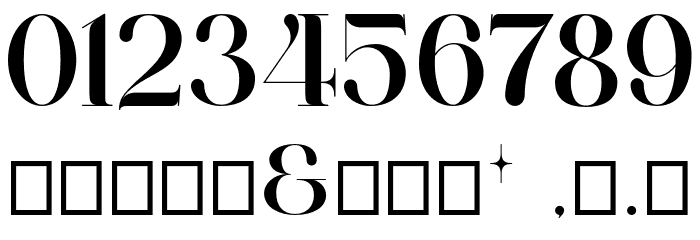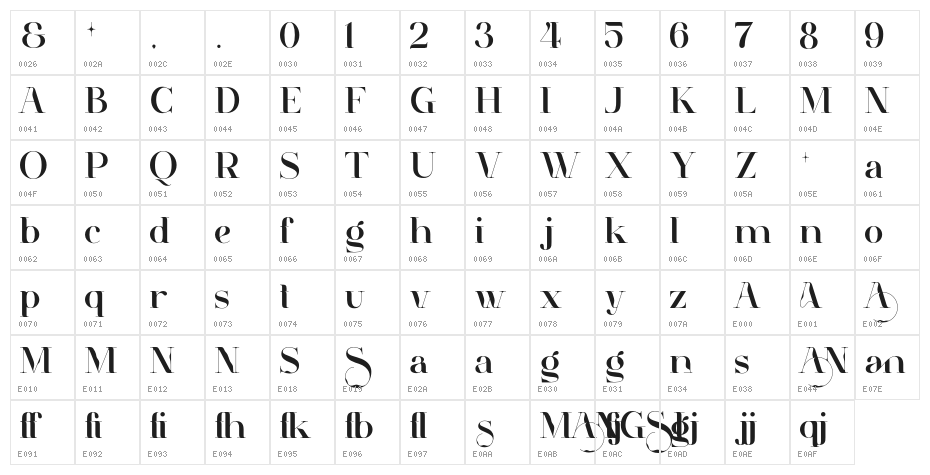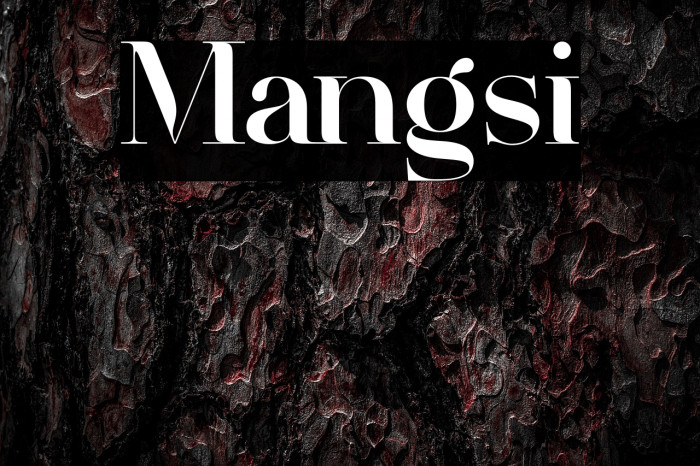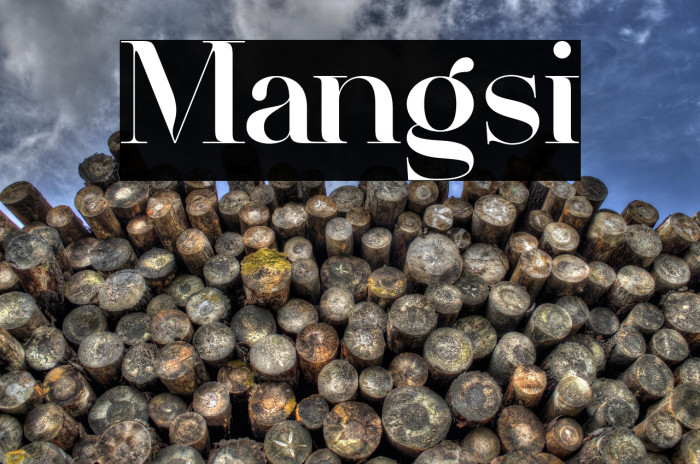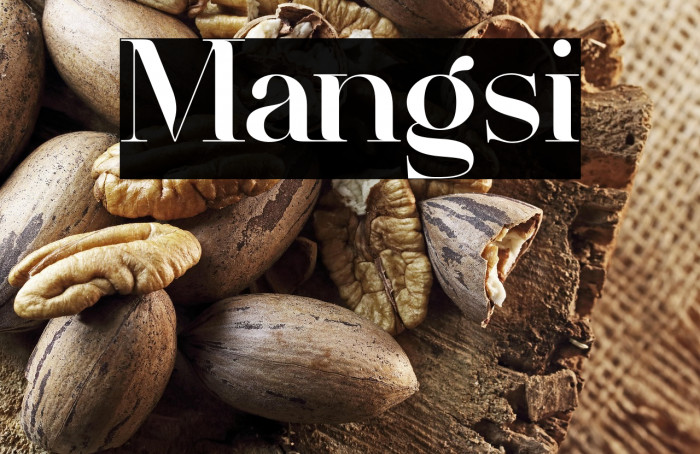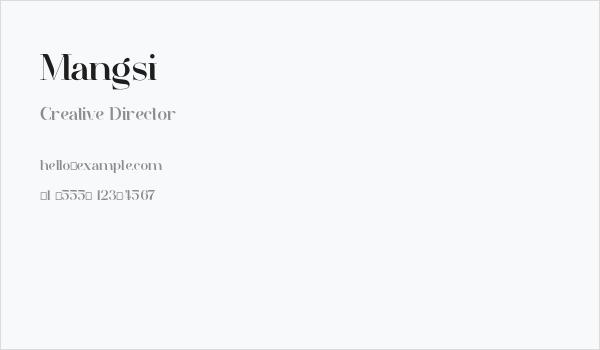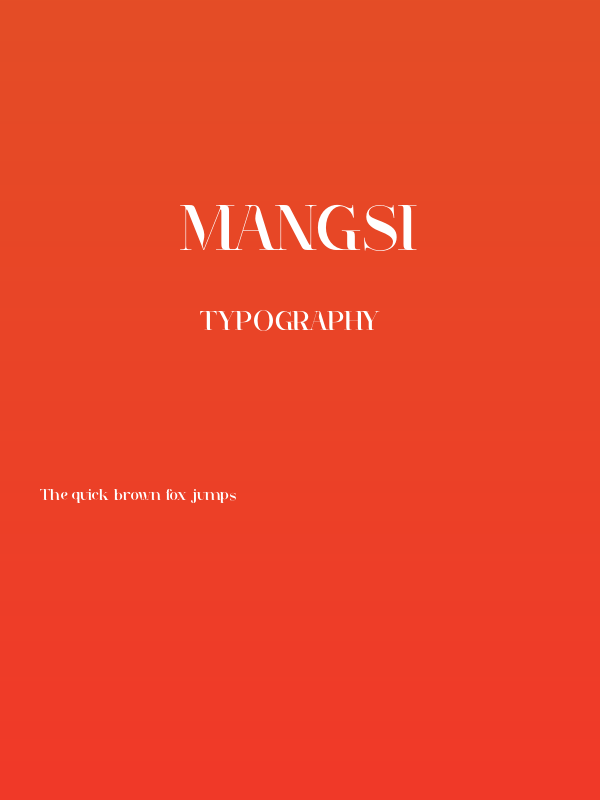
Mangsi Font
Mangsi Description
This font exhibits a sophisticated and elegant design, characterized by its high contrast between thick and thin strokes. The serifs are sharp and pronounced, giving it a classic yet modern appeal. The uppercase letters are bold and commanding, while the lowercase letters maintain a refined and graceful appearance. The numerals are distinct and stylish, complementing the overall aesthetic. The special characters are well-crafted, adding to the font's versatility. This typeface is suitable for projects that require a touch of elegance and sophistication.
| Use Case | Headlines, Logos, Editorial design |
| Proposed Projects | Ideal for luxury branding, editorial design, wedding invitations, and high-end product packaging. |